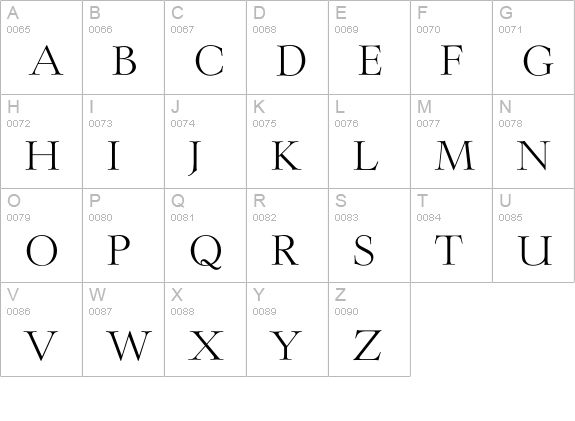
Lingwood-Light is a refined, elegant variant in the Lingwood typeface family \xE2\x80\x94 well suited to elegant body text, refined sub-headings, and luxury branding.
Lingwood-Light font is a modern and elegant typeface that exudes sophistication and style. Its sleek lines and subtle curves make it perfect for a wide range of design projects, from branding to editorial layouts. The clean and minimalist design of Lingwood-Light font ensures readability and visual appeal, making it a versatile choice for both digital and print applications. Best of all, Lingwood-Light font is completely free to download at FontsMarket.com. This means that you can add this stunning font to your collection without any cost, allowing you to elevate your designs without breaking the bank. Whether you're a professional designer or a hobbyist looking to enhance your projects, Lingwood-Light font is a fantastic choice that won't disappoint. Download it today and unleash your creativity with this beautiful and free font.